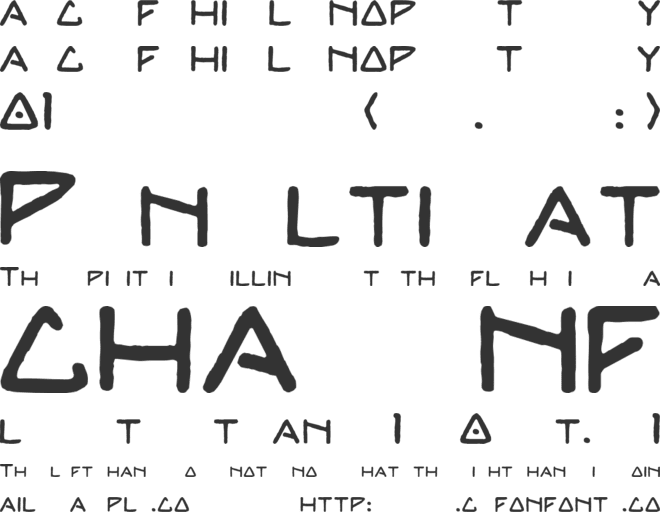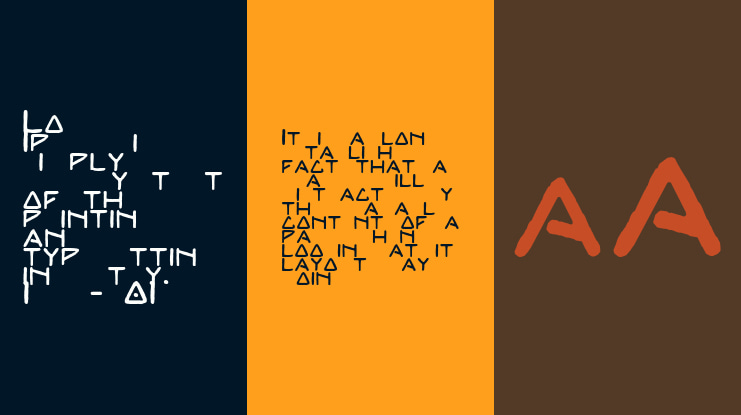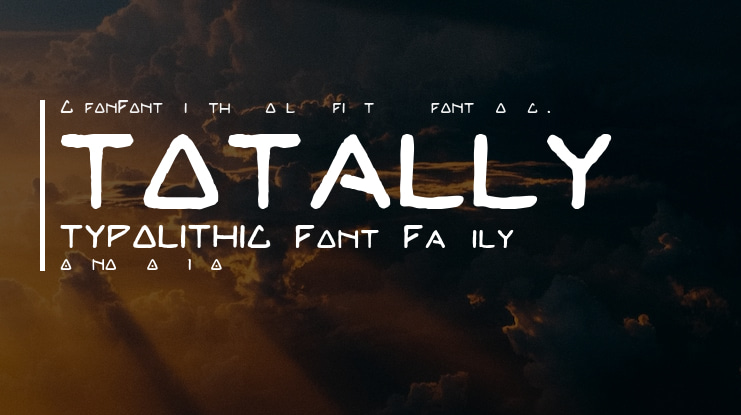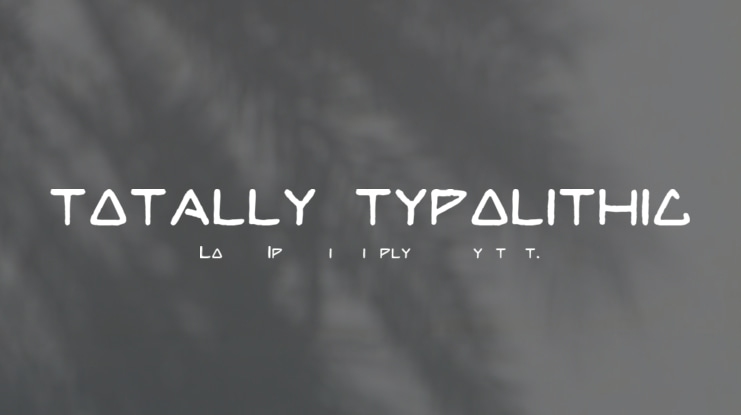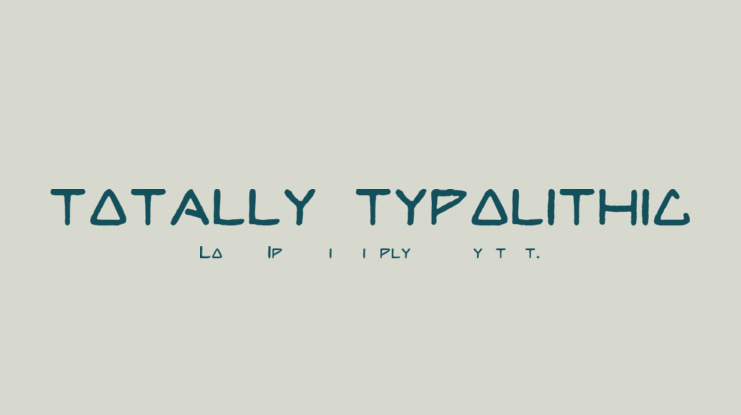
TOTALLY TYPOLITHIC Font
Paleolithic Age is also called the Old Stone Age
Mesolithic Age is regarded as a Transitory Stage
Neolithic Age is also called the New Stone Age
Typolithic Age is the Modern Digital Stone Age Totally :)